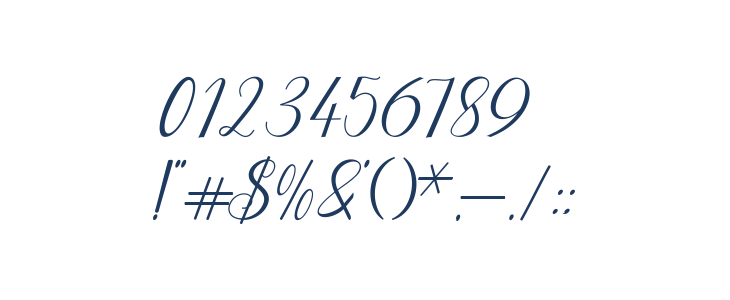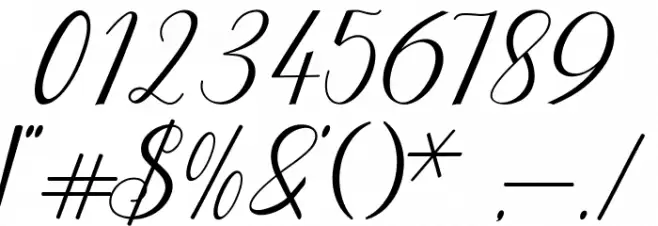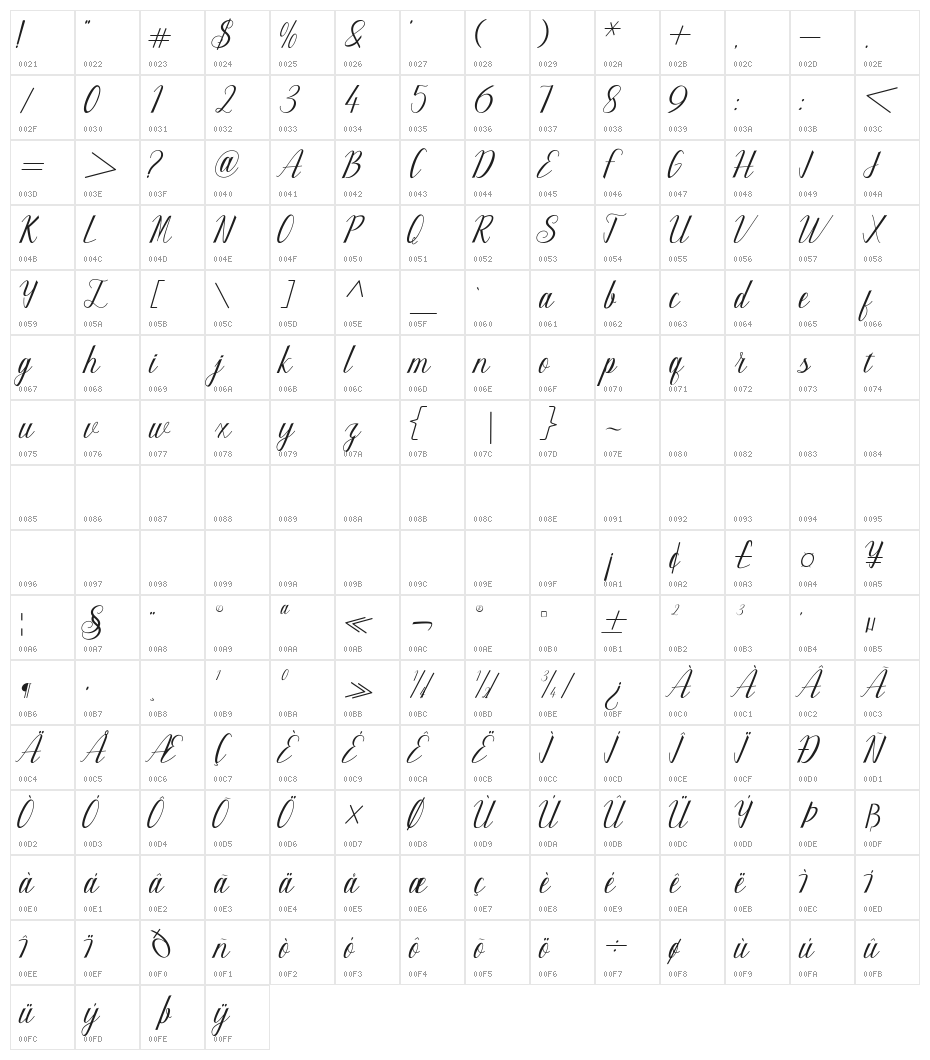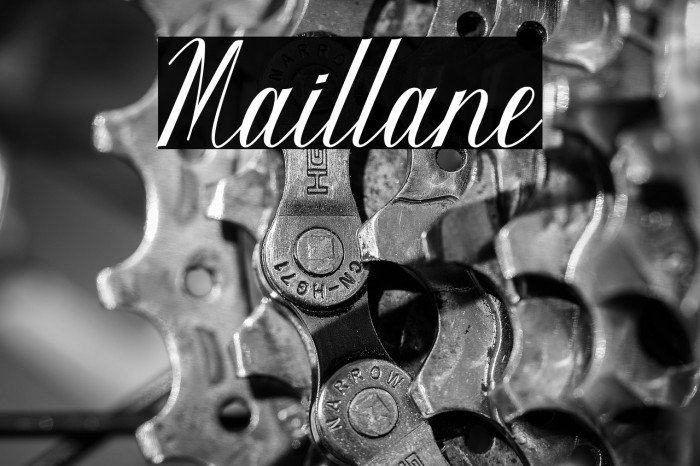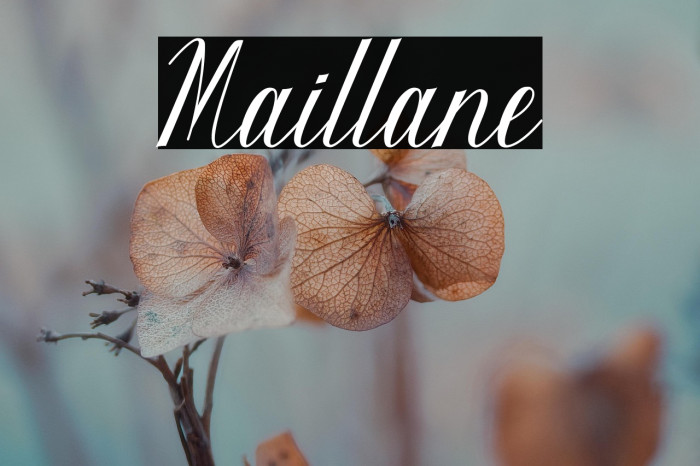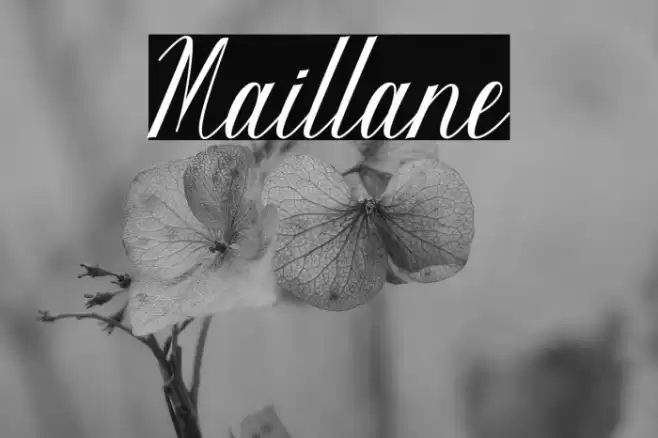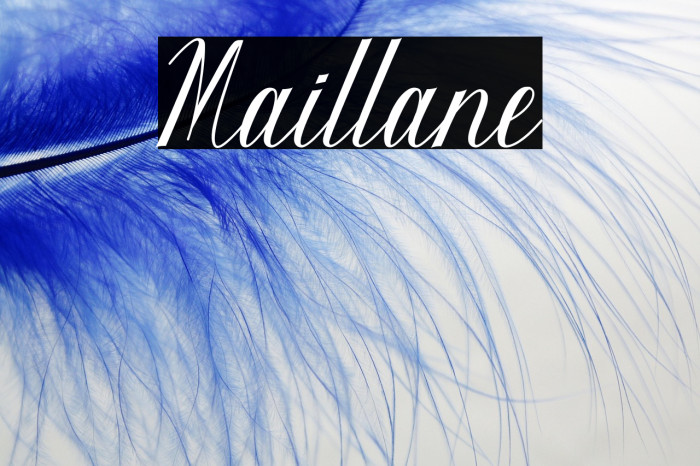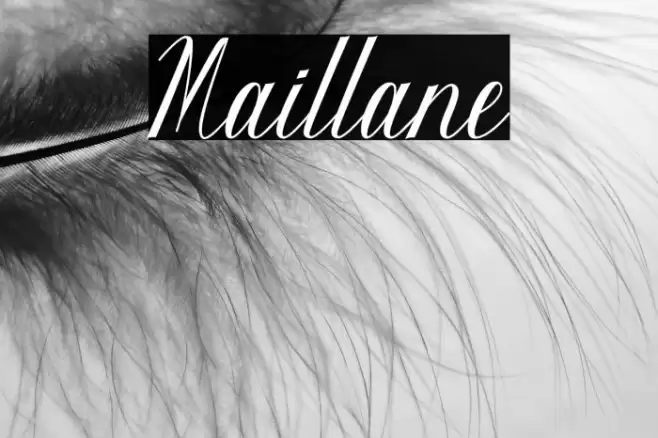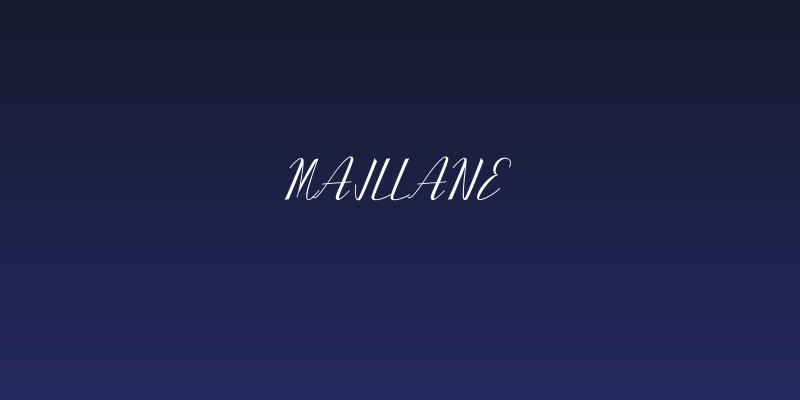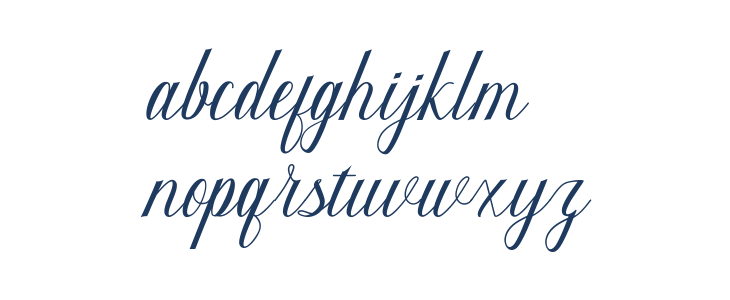
Maillane Font
Maillane Description
This elegant script font features a flowing, cursive style with a refined and sophisticated appearance. The characters are connected, creating a seamless and fluid look. The uppercase letters are tall and graceful, with sweeping curves and delicate flourishes that add a touch of elegance. The lowercase letters maintain a consistent flow, with smooth transitions between strokes. The numerals and special characters are designed to complement the overall style, maintaining the same graceful curves and fluidity. This font exudes a sense of luxury and sophistication, making it ideal for formal and decorative applications.
| Overall Style | Elegant, Sophisticated |
| Use Case | Invitations, Branding, Decorative |
| Proposed Projects | Ideal for wedding invitations, luxury branding, elegant packaging, and formal event materials. |